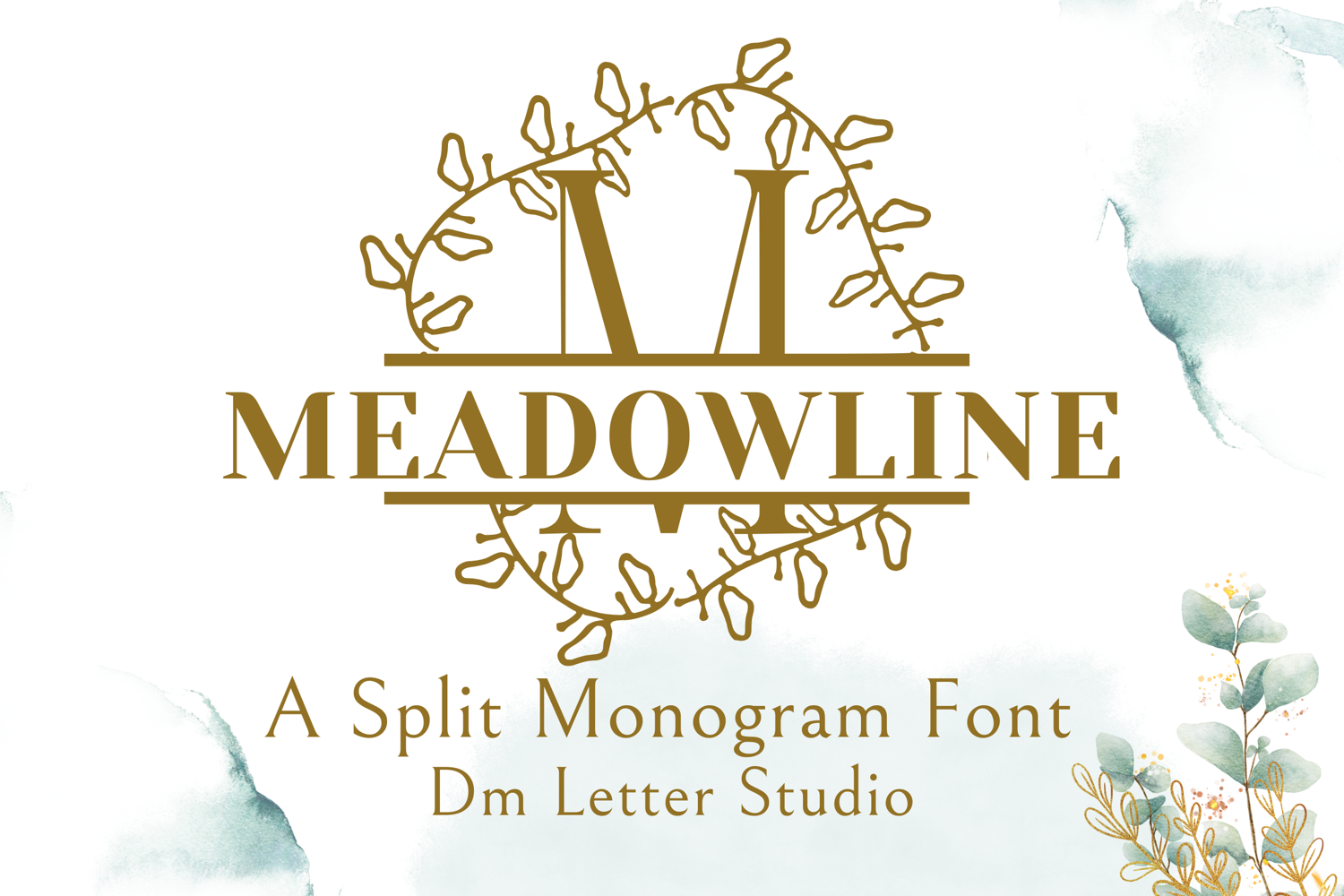
MeadowLine Split Monogram - Elegant Split Serif Font
MeadowLine Split Monogram
MeadowLine Split Monogram – Elegant Split Serif Font with Floral Line Art
MeadowLine Split Monogram is a graceful serif font designed with a clean horizontal split through each uppercase letter, perfect for customization. Delicate line-art floral illustrations gently frame each letter, inspired by wild meadows and soft botanical forms. This timeless design is ideal for wedding signage, customized gifts, Cricut projects, and romantic branding.
• Split Monogram Design: Each capital letter is neatly divided for inserting names or custom text.
• Botanical Line Illustrations: Elegant floral drawings wrap around the monogram with natural charm.
• Classic Serif Structure: Balanced serif letterforms ensure legibility and sophistication.
• Ideal For: Wedding invitations, customized gifts, Cricut monograms, boutique branding, and decorative signage.